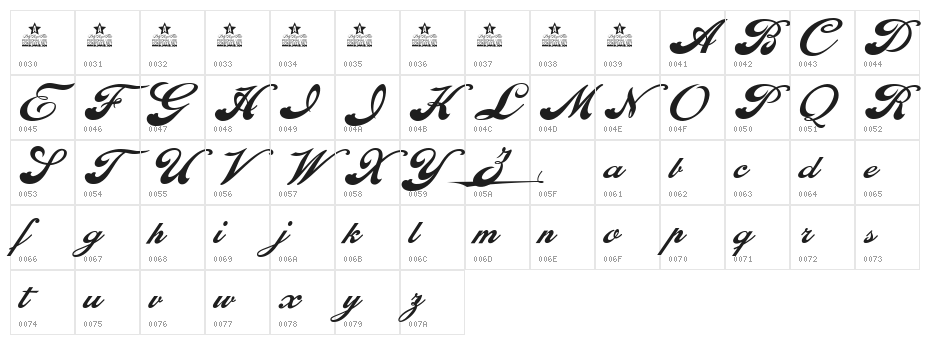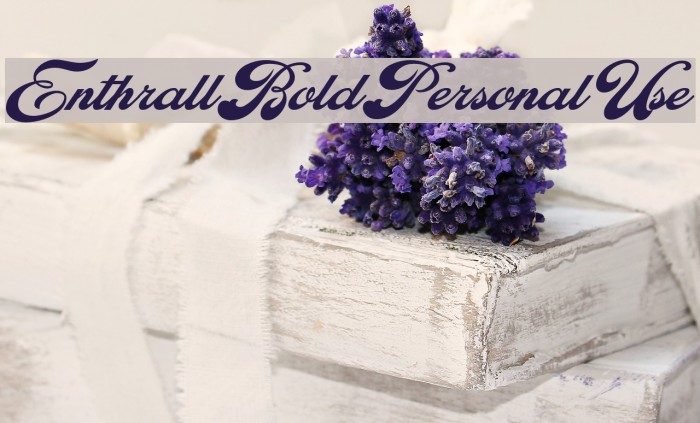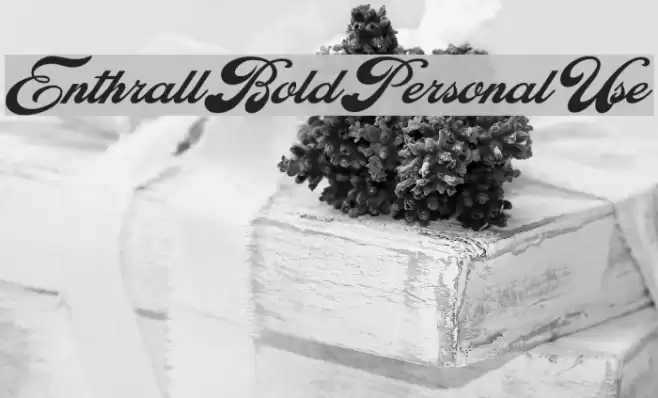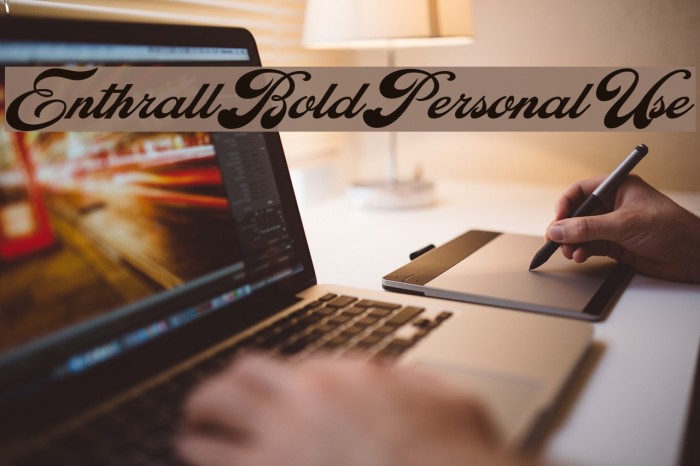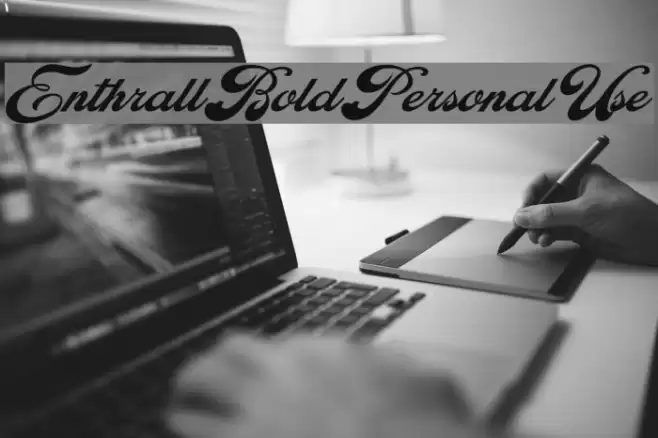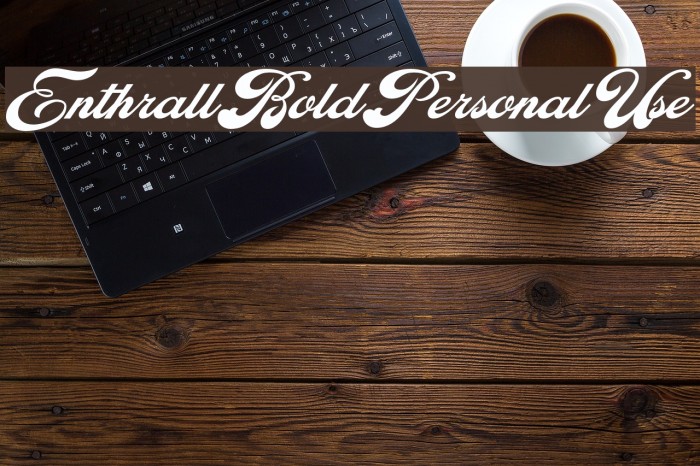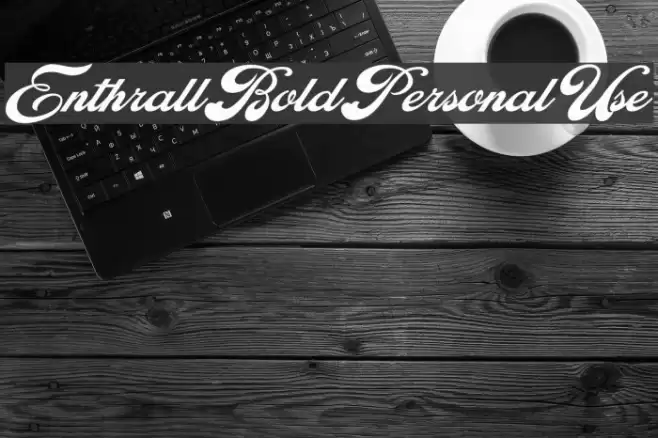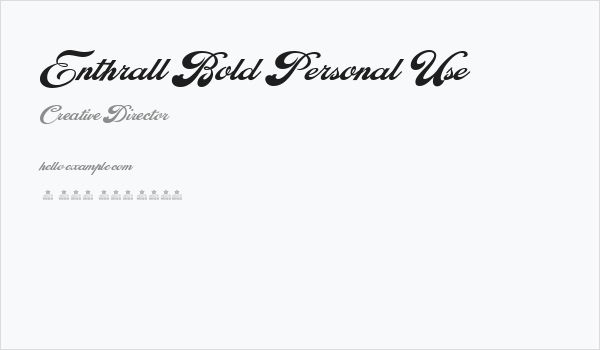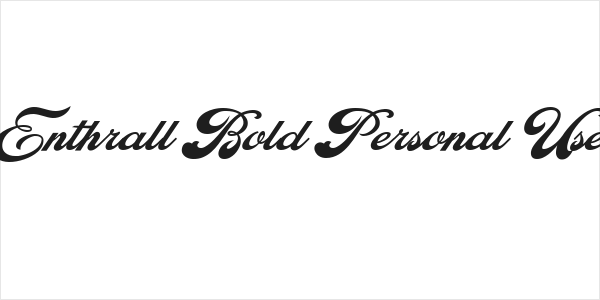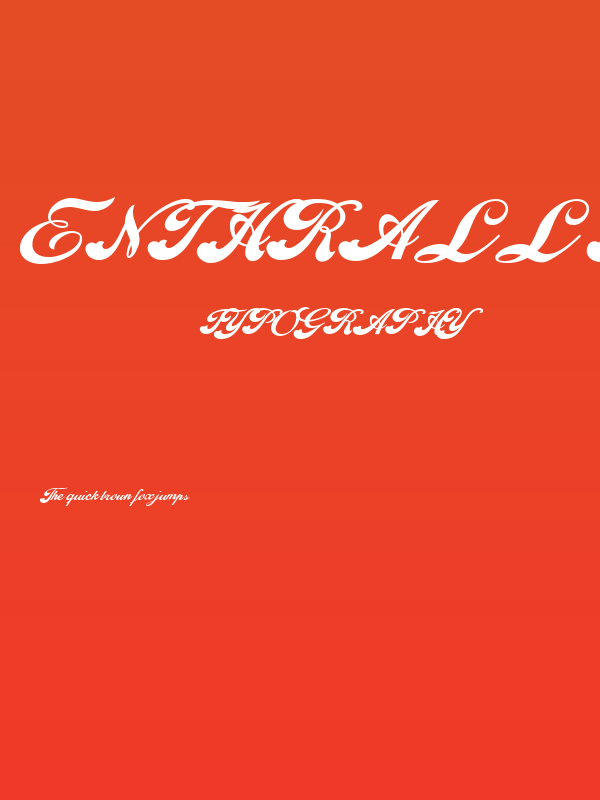
Enthrall Bold Personal Use Font
Enthrall Bold Personal Use Description
This font features a bold and elegant script style, characterized by its flowing, cursive letters that exude a sense of sophistication and flair. The uppercase letters are ornate, with intricate swirls and loops, while the lowercase letters maintain a consistent fluidity, enhancing readability despite their decorative nature. The numbers and special characters are designed to match the overall aesthetic, ensuring a cohesive look across all text. This font's bold weight and high contrast between thick and thin strokes make it stand out, ideal for creating impactful and stylish designs.
| Use Case | Logos, Invitations, Headlines |
| Proposed Projects | Ideal for wedding invitations, luxury branding, elegant signage, and decorative headlines. |